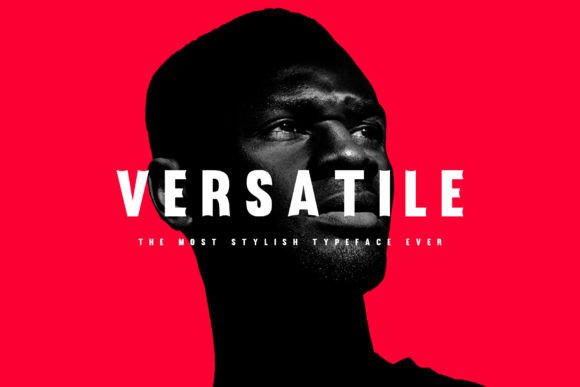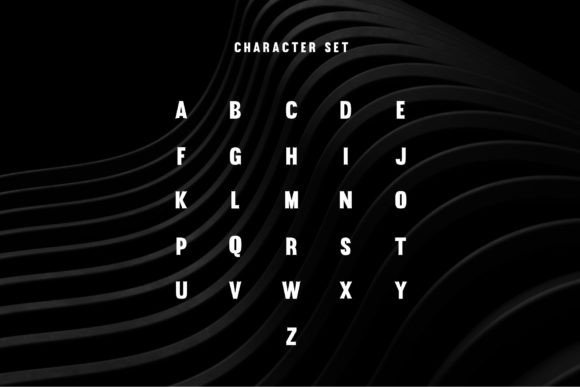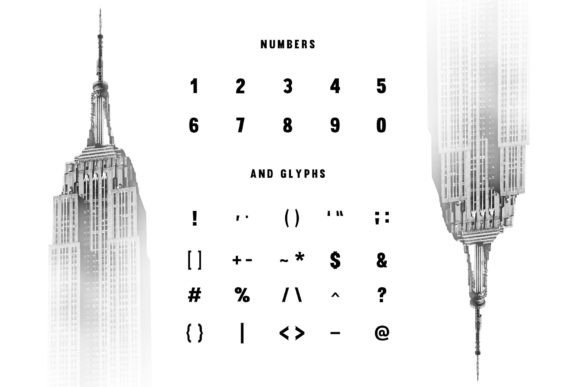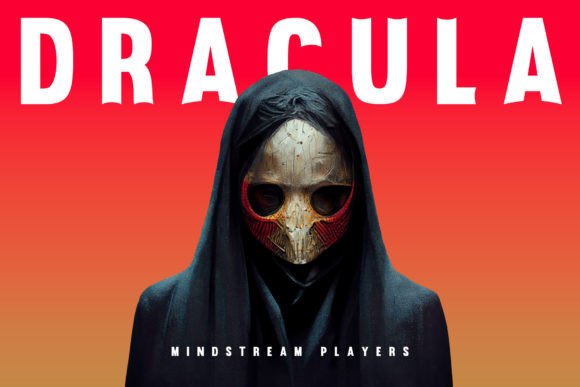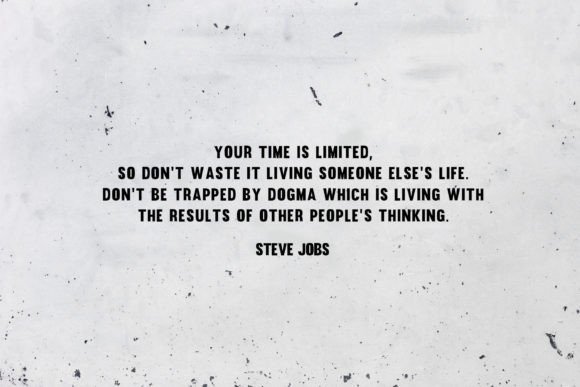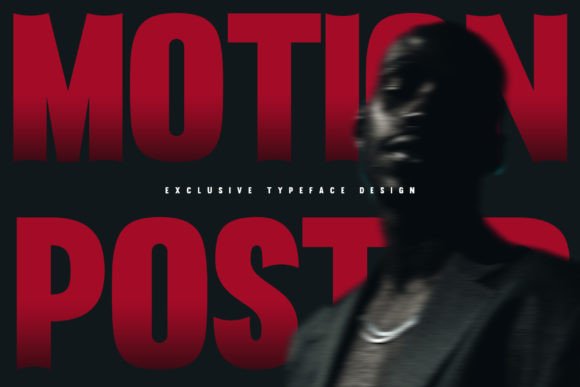
Introduction to New York 2.0 Font
New York 2.
0 is a cool and sleek sans serif font No matter the topic, this font will be an incredible asset to your fontsโ library, as it has the potential to elevate any creation.
Key Features of New York 2.0 Font
Why Choose New York 2.0 Font?
New York 2.0 Font offers exceptional quality and versatility, making it a valuable addition to your design toolkit. Whether you’re creating for personal projects or commercial use, New York 2.0 Font delivers professional results.